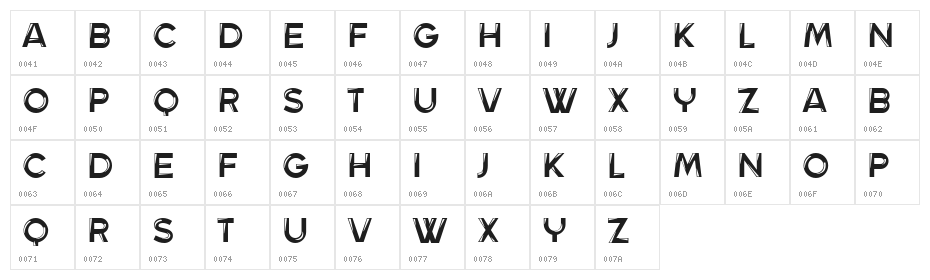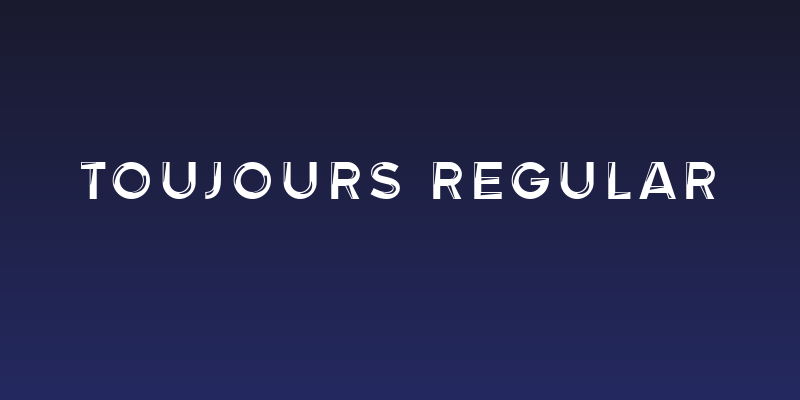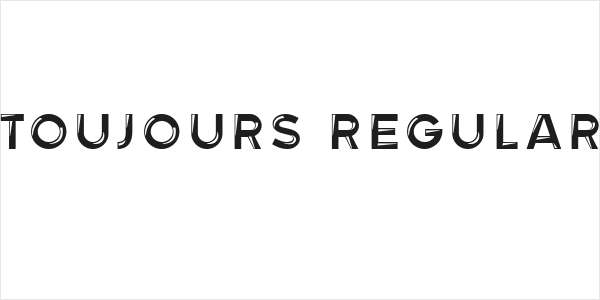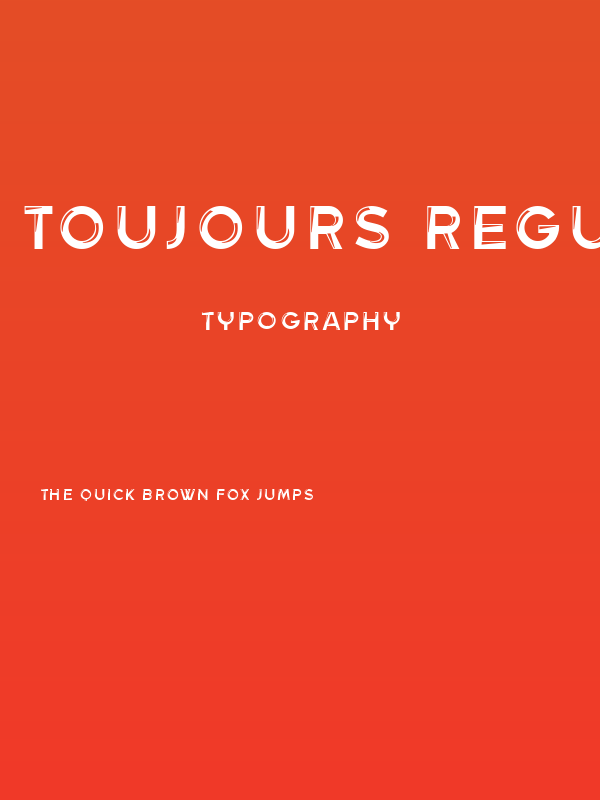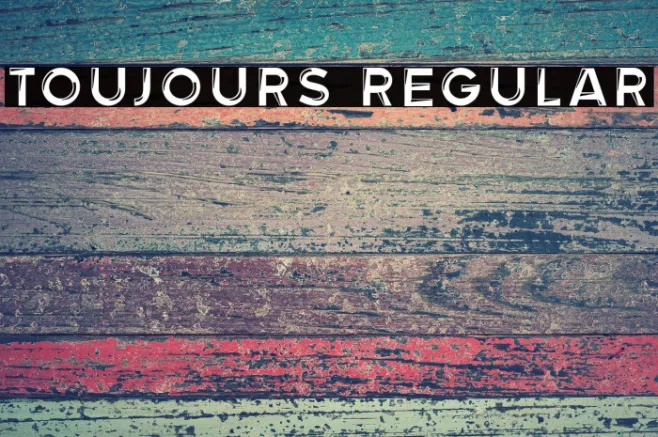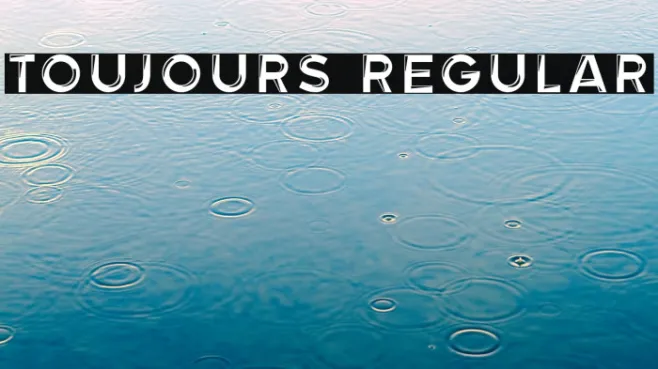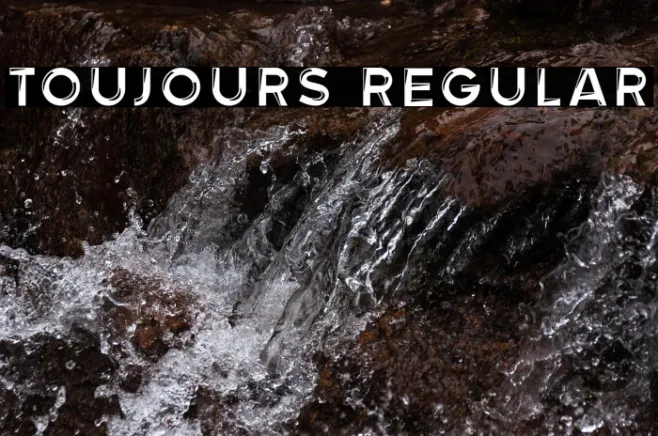
Toujours Regular Font
Toujours Regular Description
This font features a bold and striking design with a modern twist. Each character is crafted with a unique blend of geometric shapes and sharp angles, creating a sense of movement and energy. The letters are predominantly uppercase, with a consistent height and width that ensures uniformity across the typeface. The strokes are thick and consistent, providing a strong visual impact. The font's design incorporates subtle cutouts and negative spaces, adding an element of intrigue and sophistication. This font is ideal for projects that require a contemporary and dynamic aesthetic.
| Proposed Projects | Ideal for branding, advertising, posters, and headlines that require a modern and dynamic look. |